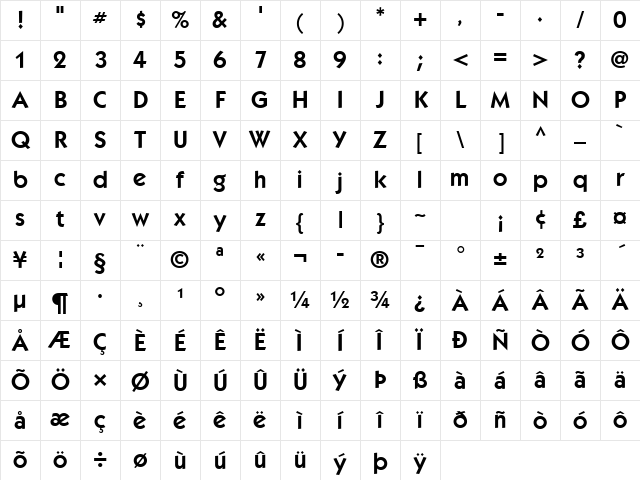
KabelITCW05-Demi Regular
Foundry: ParaType Ltd
Designer: Victor Caruso, Tagir Safayev
Design Context for KabelITCW05-Demi
KabelITCW05-Demi is a composed and adaptable typeface that performs quietly and consistently across a wide range of design contexts.